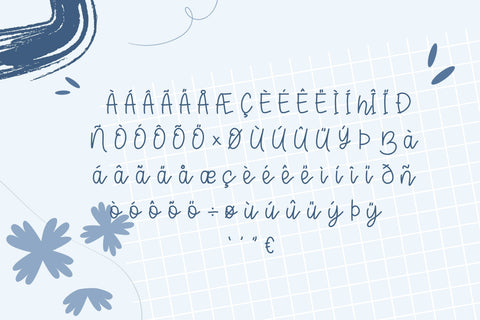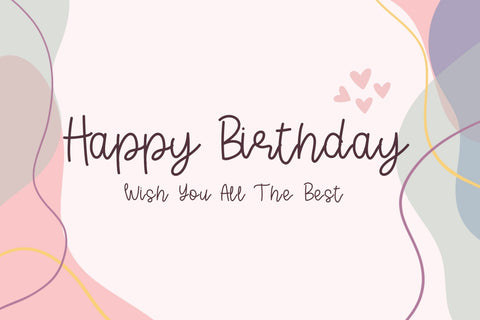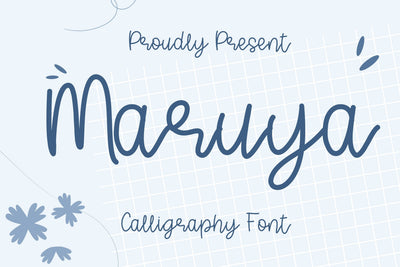
Maruya Font
Maruya is a thin and beautiful Script font. Its distinct and well rounded letters make this font a masterpiece. Fall in love with its incredibly versatile style and use it to create spectacular designs!